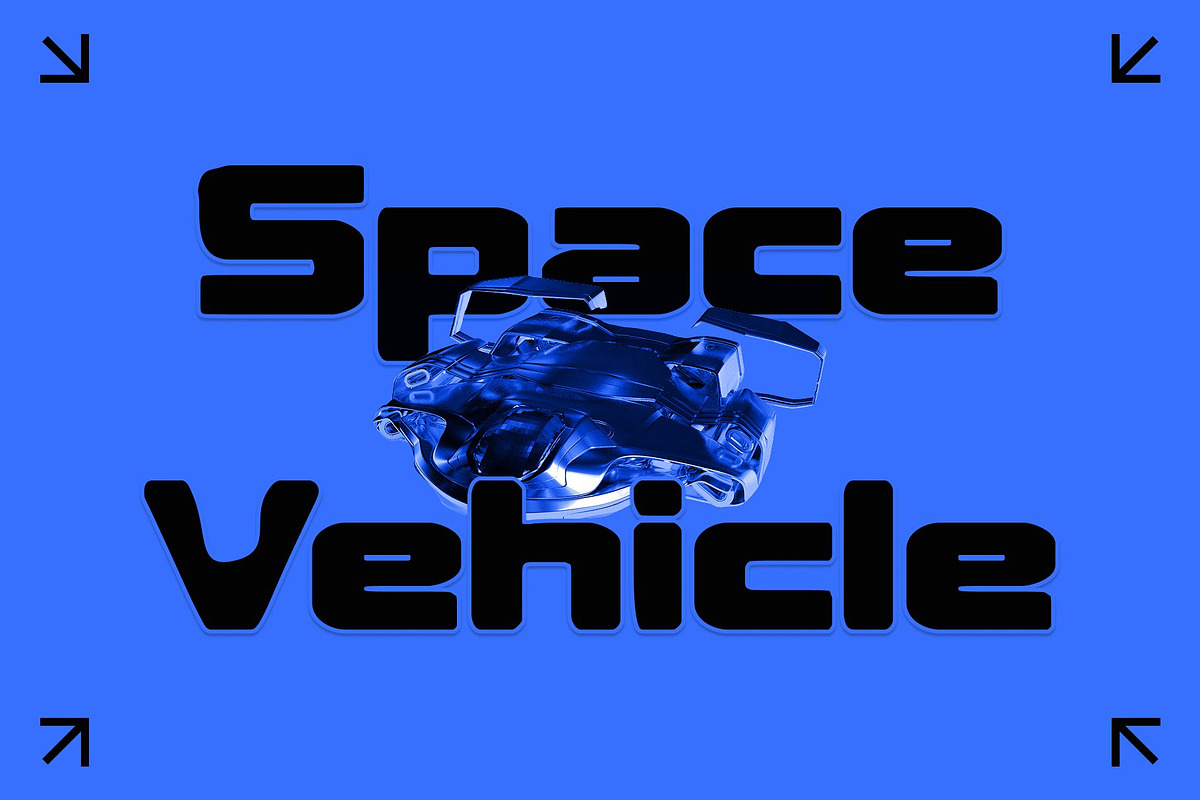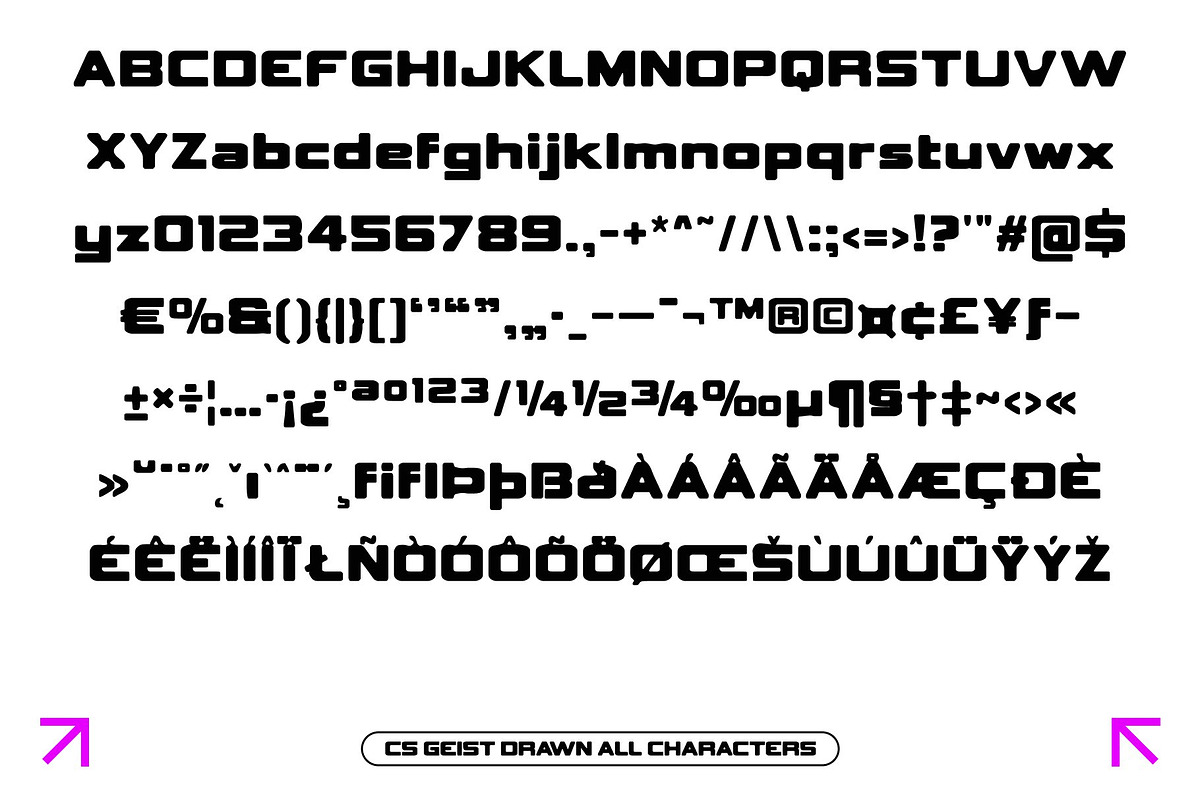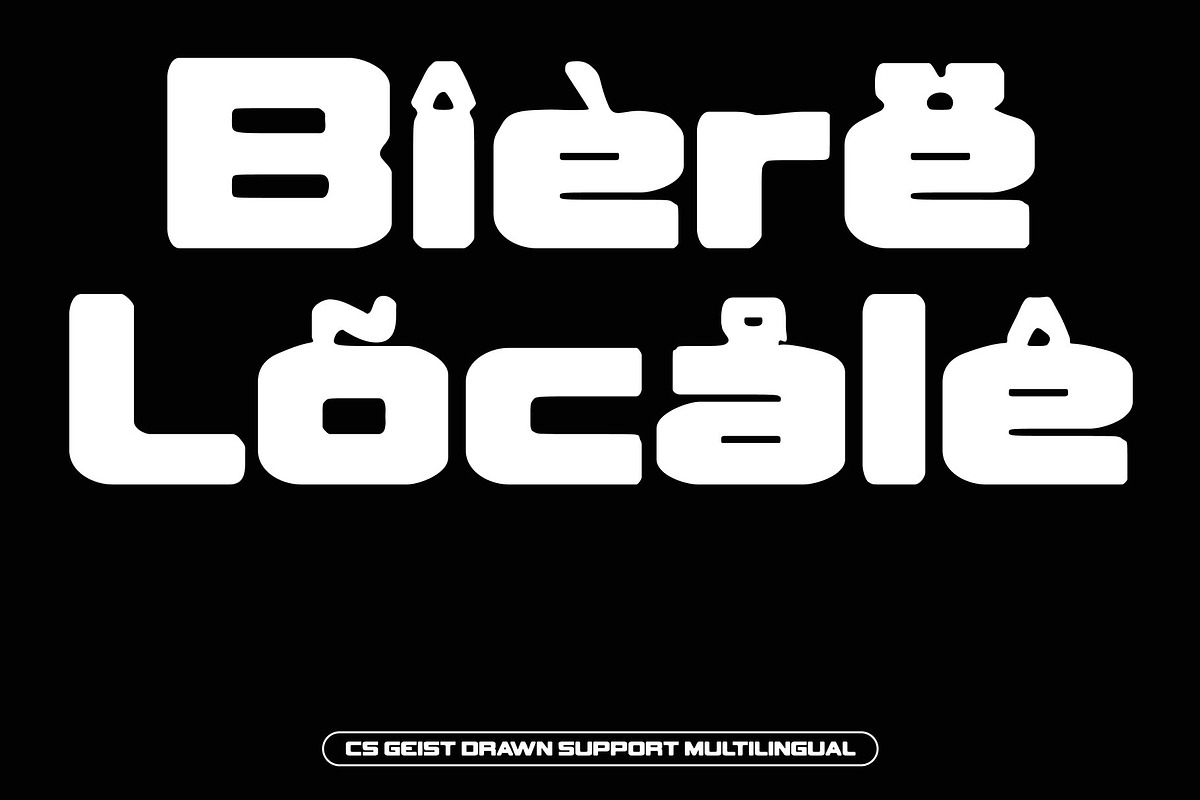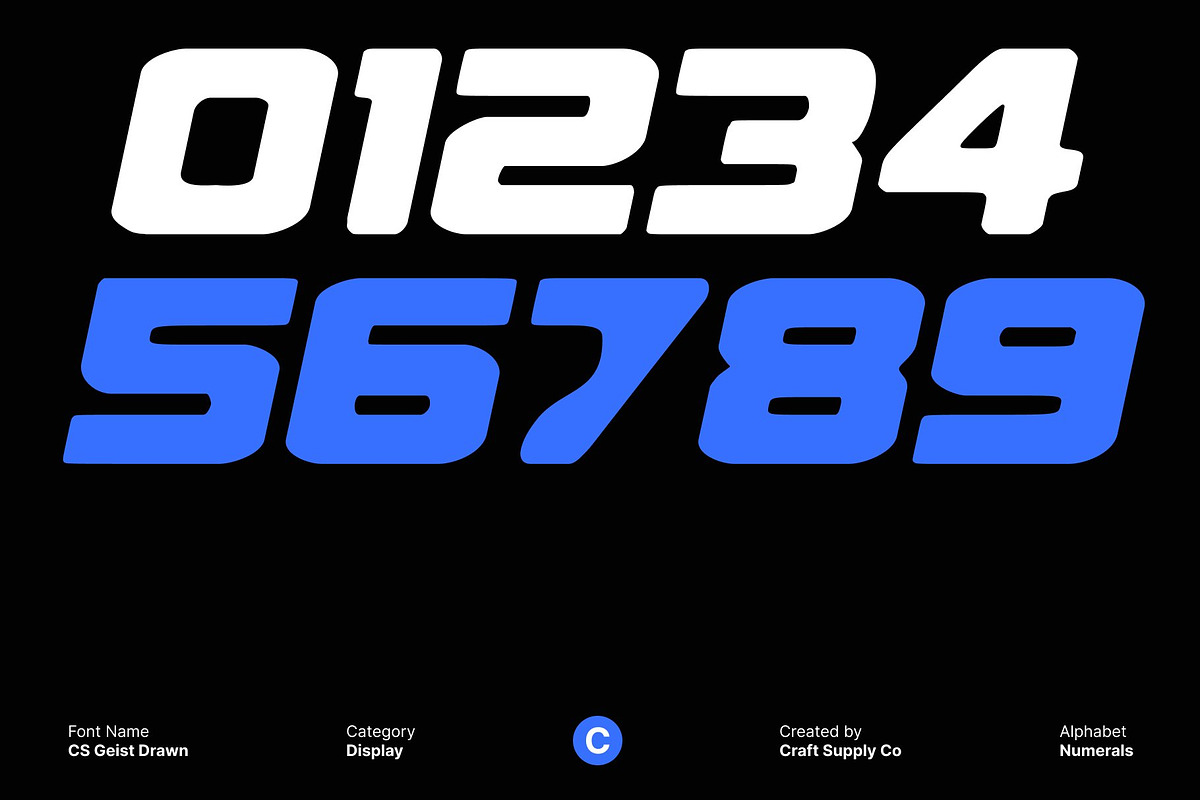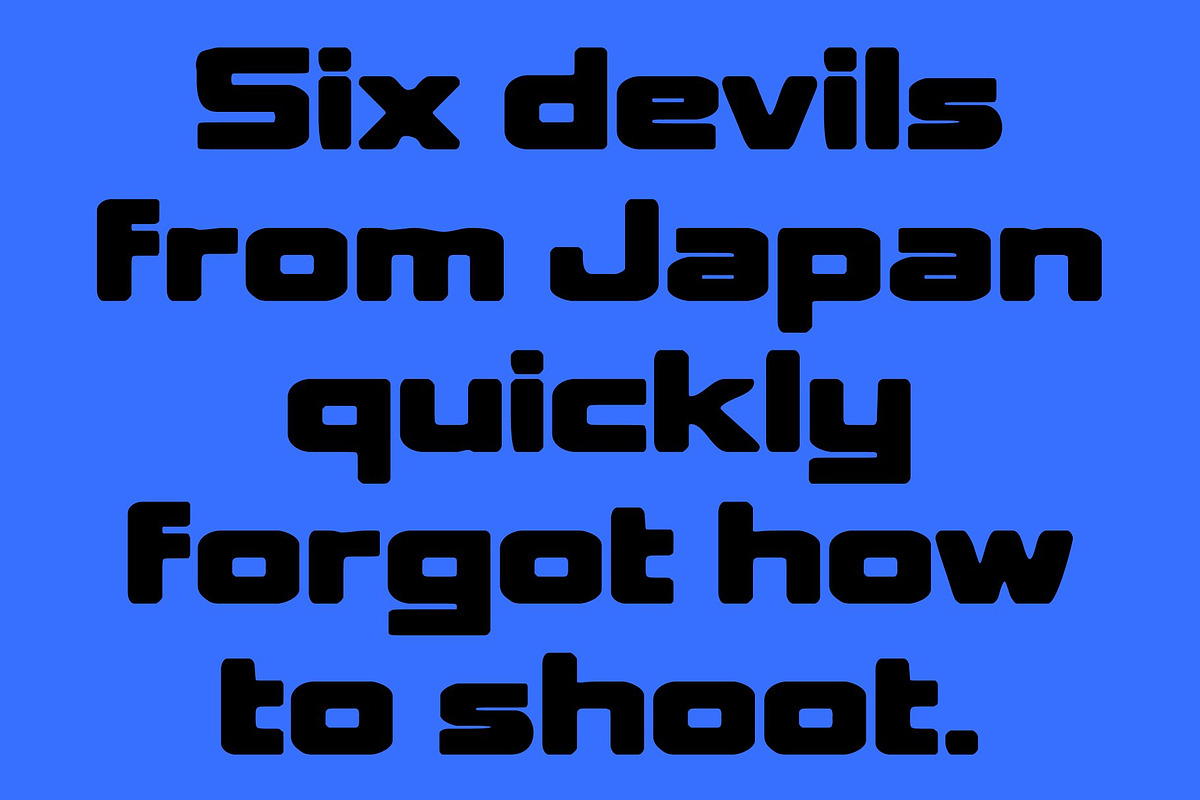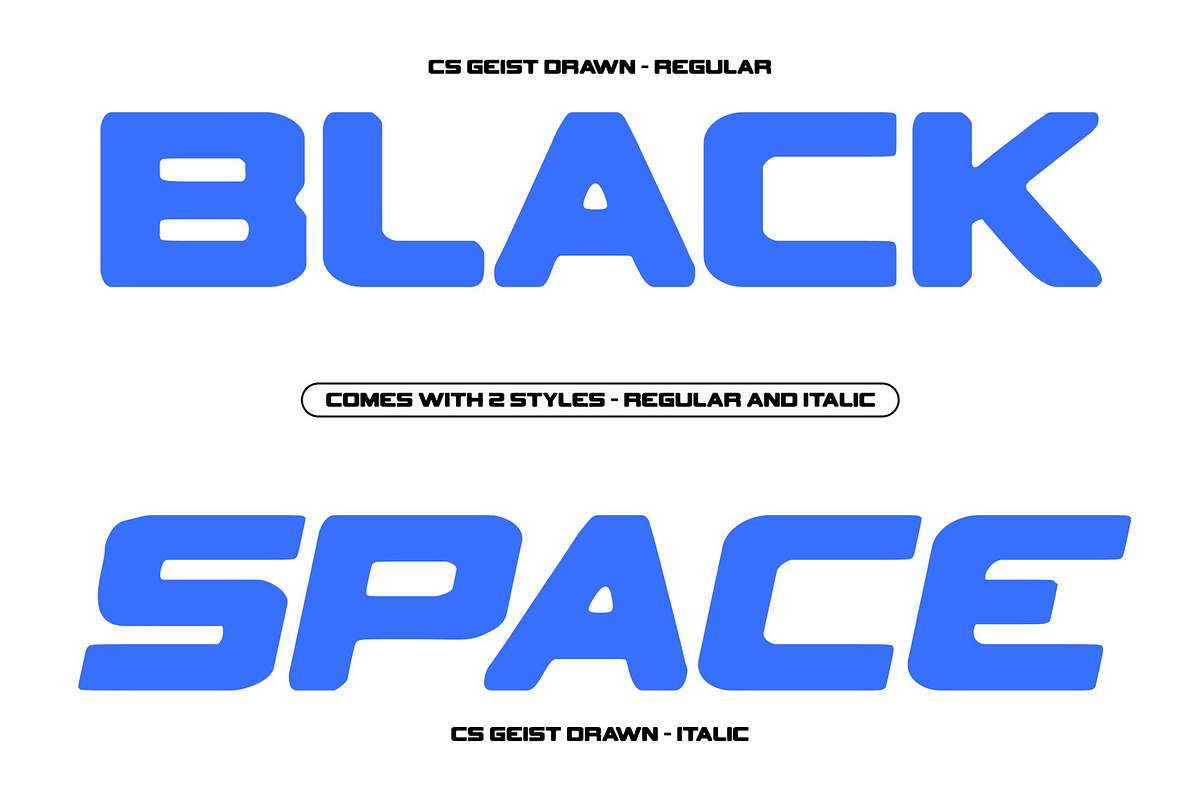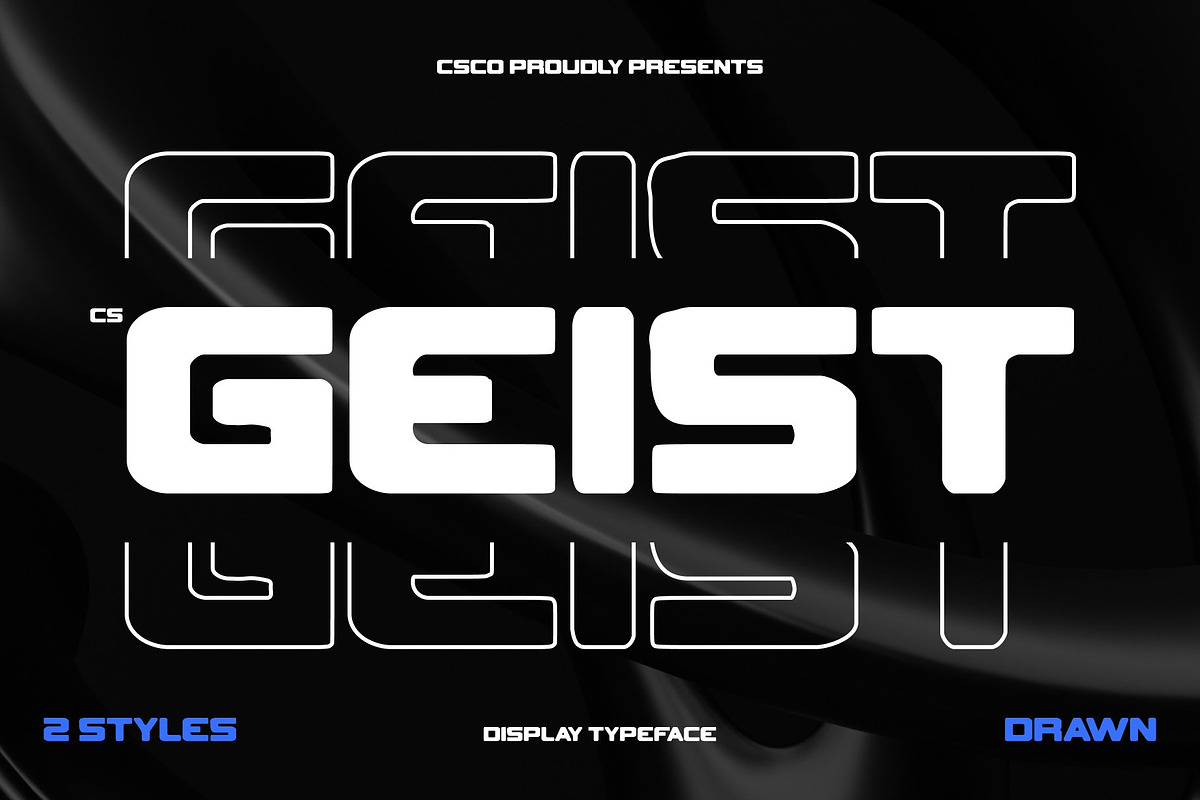
CS Geist Drawn
CS Geist Drawn – Techno Inspired Sans Serif with Modern Energy
Bold and Striking Letterforms with Hand-Drawn Texture This is a techno inspired sans serif font designed to deliver strong visual impact with a distinctive edge. Its bold, confident letterforms are built on sharp geometry, while the drawn effect adds subtle texture and organic irregularity. This combination creates typography that feels powerful, expressive, and visually engaging, making every headline stand out with character.
Modern Energy with a Futuristic, Human Touch The font embodies modern energy and futuristic appeal through its structured forms and clean lines. Enhanced by the drawn texture, this font avoids feeling cold or mechanical, instead offering a dynamic balance between technology and handcrafted expression. This gives the font a lively, edgy personality that reflects innovation, speed, and contemporary design culture.
High-Impact Display with Clear Readability Designed primarily for display use, This font performs exceptionally well in headlines, posters, logos, and branding. Its bold construction ensures clarity at various sizes, while the textured drawn details add depth and visual interest. This makes it ideal for both digital and print applications that demand attention and strong presence.
Perfect for Futuristic Branding and Creative Projects Whether used for tech branding, promotional campaigns, editorial layouts, or futuristic visuals, this font delivers confidence and modern flair. Its blend of techno geometry and drawn texture makes it a powerful choice for designers seeking bold typography with energy, personality, and a contemporary handcrafted feel.
- CS Geist Drawn Regular
- CS Geist Drawn Italic